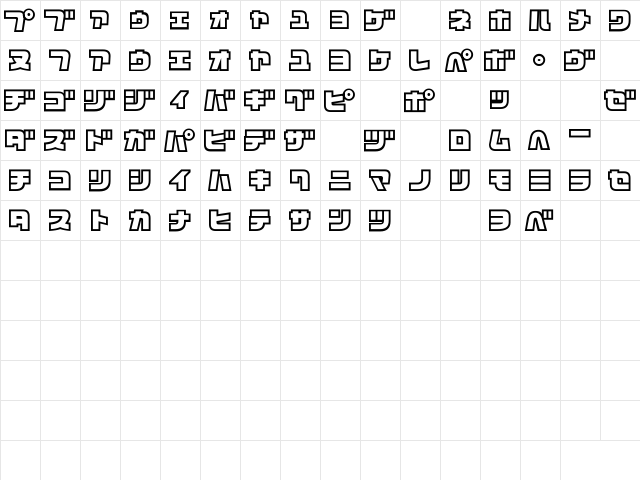
D3 Cosmism Katakana Regular
Design Context for D3 Cosmism Katakana Typeface
D3 Cosmism Katakana offers clean, dependable letterforms without strong stylistic allegiance, making it a practical choice for designers who need flexibility.